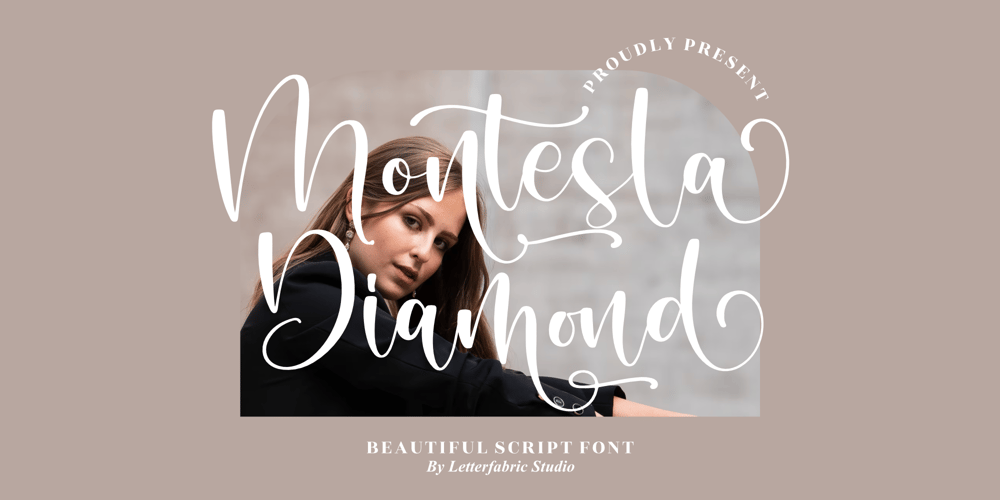
Montesla Diamond Font Family was designed by Heru Utama Putra and published by Letterena Studios. Montesla Diamond contains 2 styles and family package options. Montesla Diamond is an enchanting handwritten font. This versatile script font has a wide spectrum of applications ranging from greeting cards to headlines. Montesla Diamond is PUA encoded which means you can access all of the amazing glyphs and ligatures with ease!